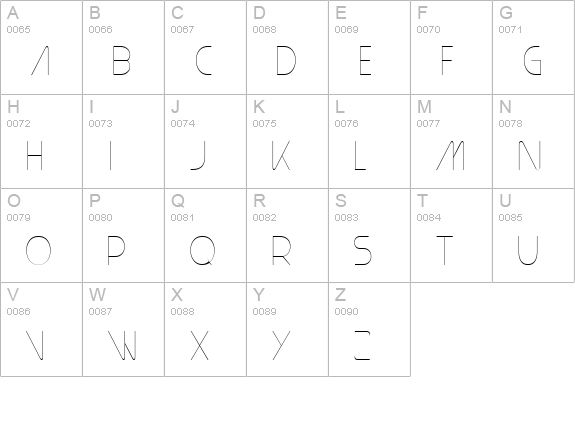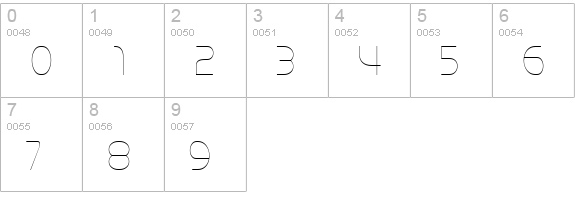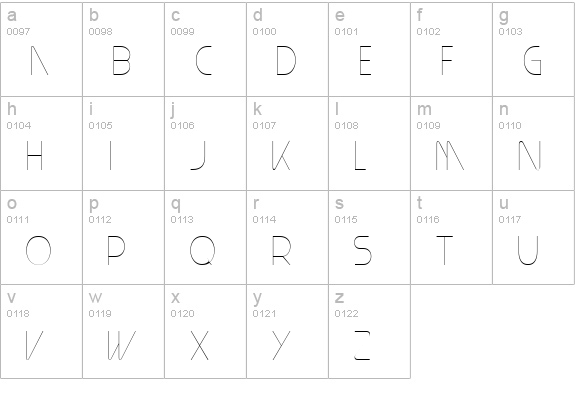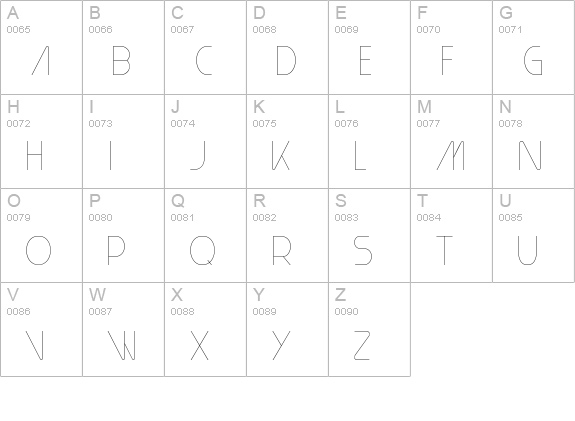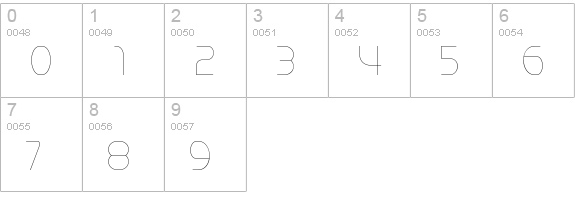
Plain Cred 1978 Font Details
Plain Cred 1978 is a timeless font that embodies simplicity and elegance. With its clean lines and classic letterforms, this font is perfect for a wide range of design projects. Whether you're creating a logo, designing a website, or working on a print layout, Plain Cred 1978 will add a touch of sophistication to your work. What makes Plain Cred 1978 even more appealing is that it is free. Yes, you read that right! This stunning font is freely available to download at FontsMarket.com. You can effortlessly add this font to your collection without breaking the bank. Now, you can elevate your designs without worrying about any additional costs. The versatility of Plain Cred 1978 is another reason to love it. It can be used for both headings and body text, making it a great choice for various design applications. Its legibility ensures that your message is conveyed clearly, while its stylish look adds an element of visual interest. The clean and balanced letterforms of Plain Cred 1978 create a harmonious flow of text, making it a pleasure to read. Its subtle curves and precise angles give this font a modern yet timeless appeal. Whether you're aiming for a contemporary design or a more vintage-inspired look, Plain Cred 1978 is a versatile font that will effortlessly adapt to your creative vision. With Plain Cred 1978, you can bring your designs to life and make them stand out. Its sleek and professional appearance will captivate your audience, leaving a lasting impression. So go ahead, download Plain Cred 1978 for free at FontsMarket.com and unlock a world of design possibilities.